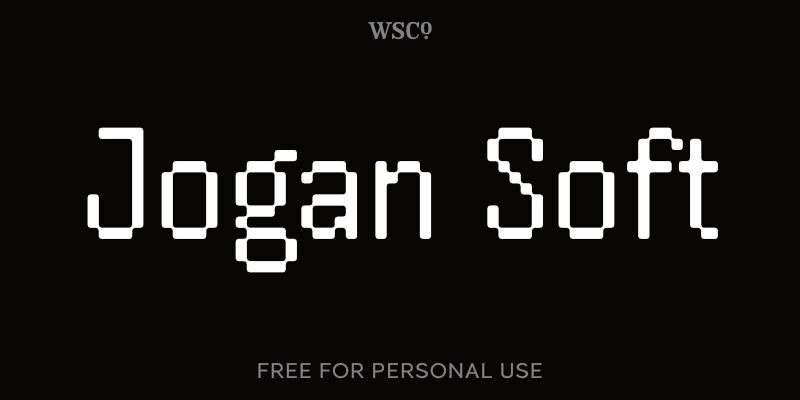
Jogan Soft, designed by Wahyu & Sani Co., is a captivating display font with a digital flair. With its semi-light weight and semi-condensed width, Jogan Soft adds an elegant touch to any project.
Its sleek curves and clean lines make it perfect for modern websites, app interfaces, or technology-related branding materials. Whether you're designing a cutting-edge tech blog or creating eye-catching digital presentations, Jogan Soft will bring sophistication and style to your work.